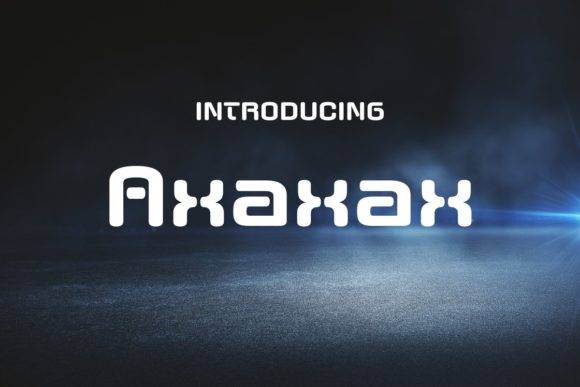
Axaxax Bold Font for Cricut, Silhouette and Printable Designs
Axaxax Bold is a digital font designed for compatibility with cutting machines like Cricut and Silhouette, while also being ideal for bold print-based projects. Its high-impact letterforms and precise structure make it a go-to choice for crafters, makers, and digital designers looking to make strong typographic statements. This font not only excels in crafting but also offers versatility across various design applications, ensuring that every project stands out. Whether you're creating custom invitations or unique signage, Axaxax Bold serves as a backstage pass font for crafts, empowering users to unleash their creativity. With its bold and modern aesthetic, it captures attention and enhances visual storytelling in any medium.
Whether you're cutting vinyl decals, designing personalized signs, or building printable wall art, Axaxax Bold ensures clarity, strength, and professional-quality results across your creative process.
- Cuttable vinyl decals and stencils
- Printable wall art and motivational posters
- Custom labels, product packaging, and tags
- T-shirt graphics and iron-on transfers
- Scrapbooking, cards, and craft embellishments
- Bold and clean structure for strong readability
- Optimized for both print and cutting machine workflows
- Great for high-contrast design projects
Q: Is this a good font for cutting vinyl or iron-on designs?
A: Yes. Axaxax Bold’s clean lines and strong contrast make it ideal for precision cutting and transfer projects.
| Style | Bold geometric sans | Rounded script | Modern handwritten |
| Cutting Machine Compatibility | High - optimized for Cricut & Silhouette | Moderate - needs adjustments | High - clean edges for cutting |
| Best For | Vinyl, printables, bold signage | Cards and decor | T-shirts and crafts |